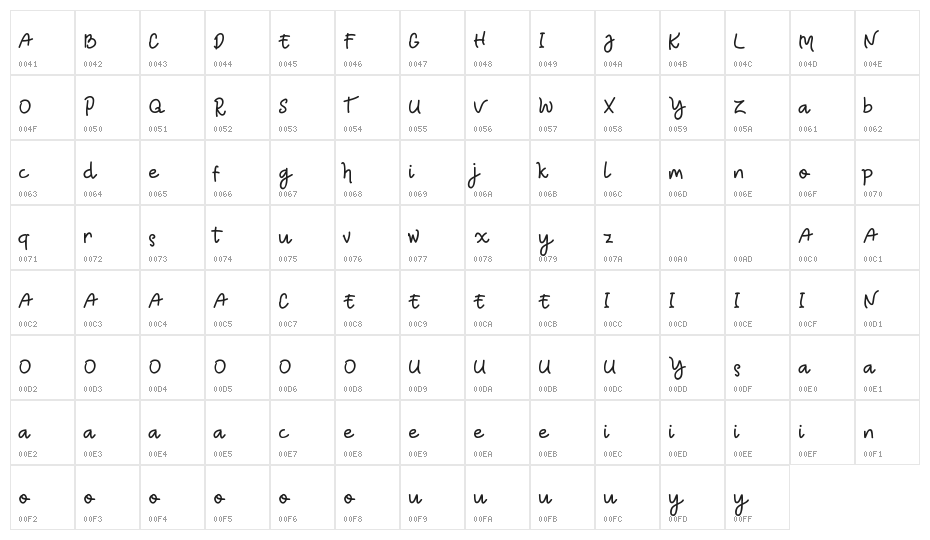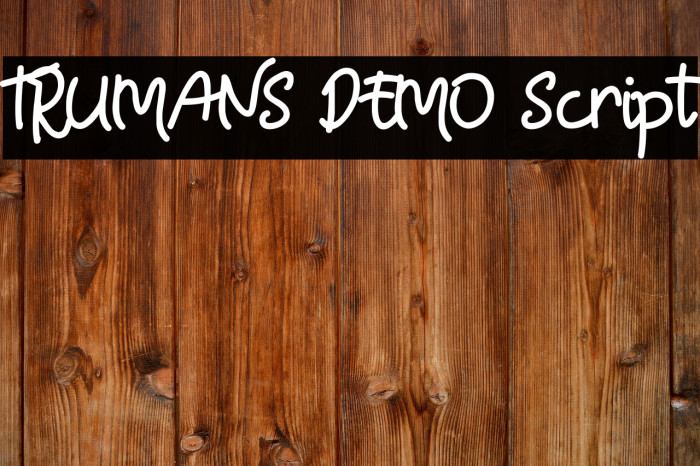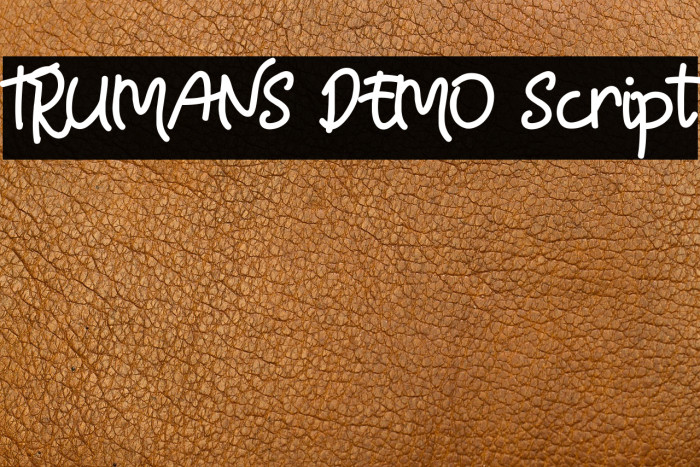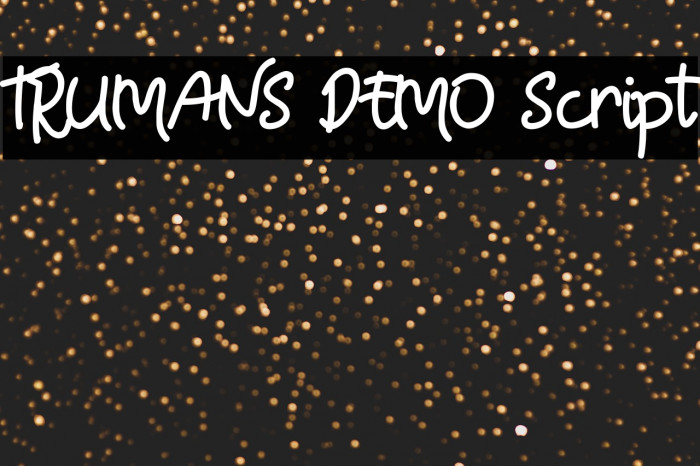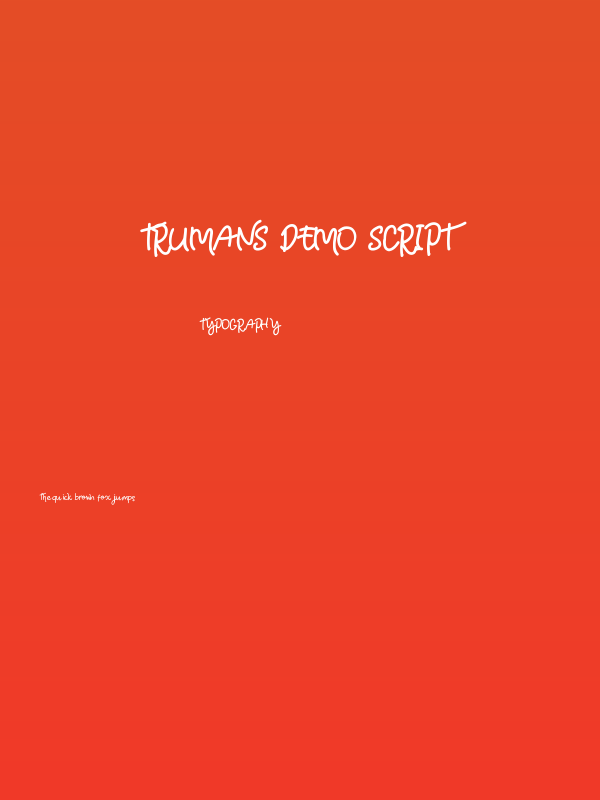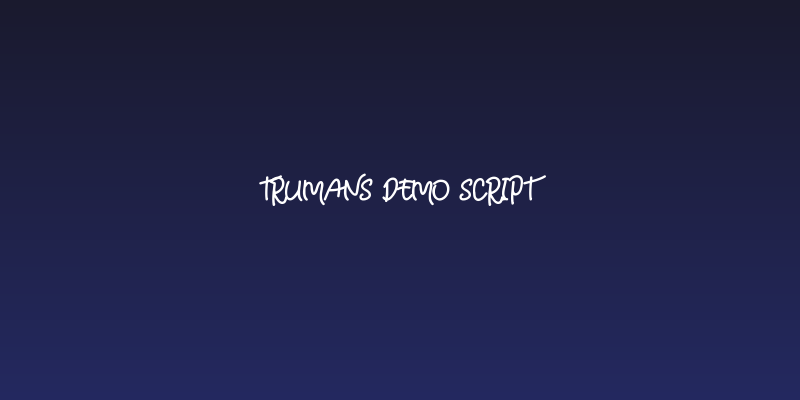
TRUMANS DEMO Script Font
TRUMANS DEMO Script Description
This font features a playful and casual script style, characterized by its fluid and connected letterforms. The strokes are smooth and slightly irregular, giving it a hand-drawn appearance. The uppercase letters maintain a consistent height, while the lowercase letters exhibit a slight slant, enhancing the informal aesthetic. The overall design is approachable and friendly, making it suitable for projects that require a personal touch. The font maintains a consistent weight throughout, with medium contrast in stroke thickness, adding to its legibility and charm.
| Overall Style | Casual |
| Use Case | Logos, Headlines, Invitations |
| Proposed Projects | Ideal for greeting cards, invitations, personal branding, and social media graphics. |